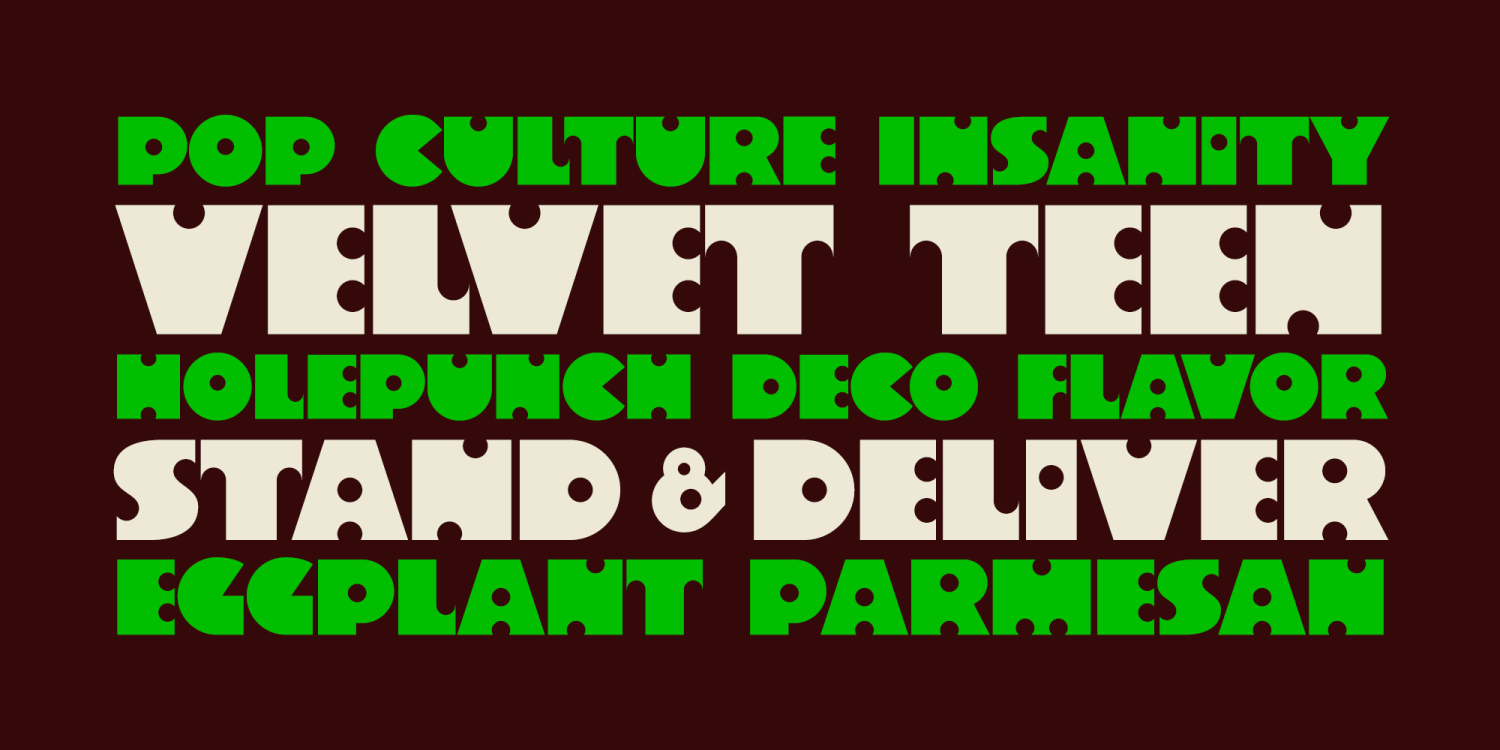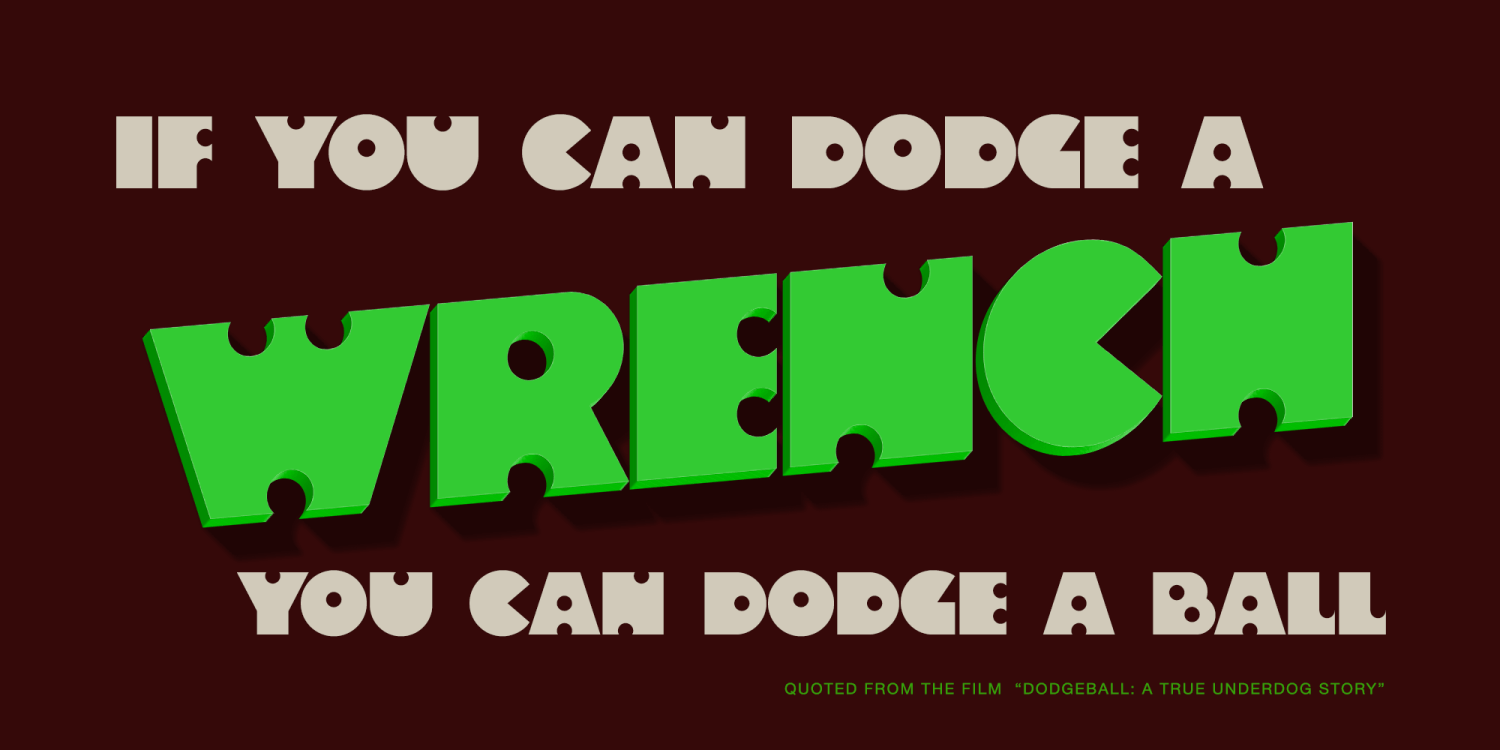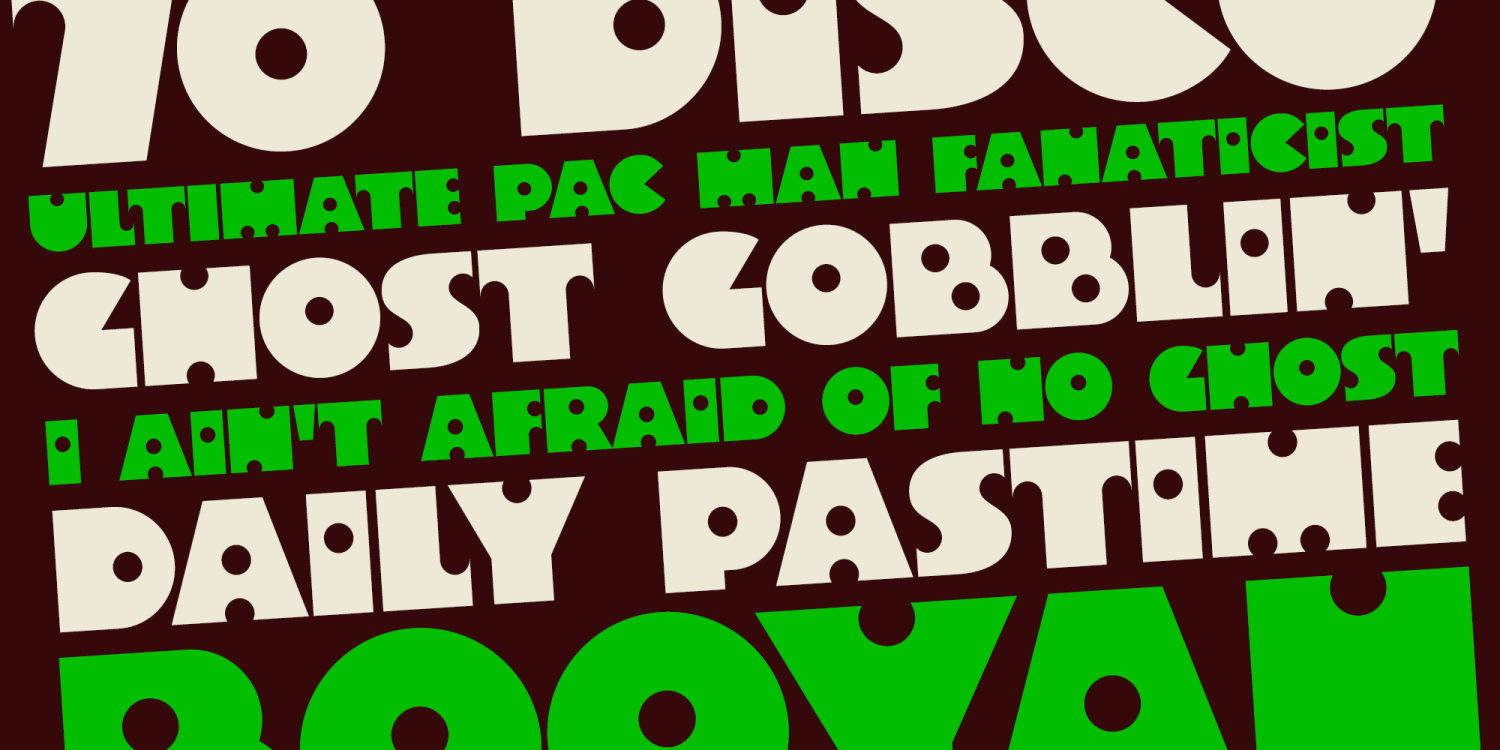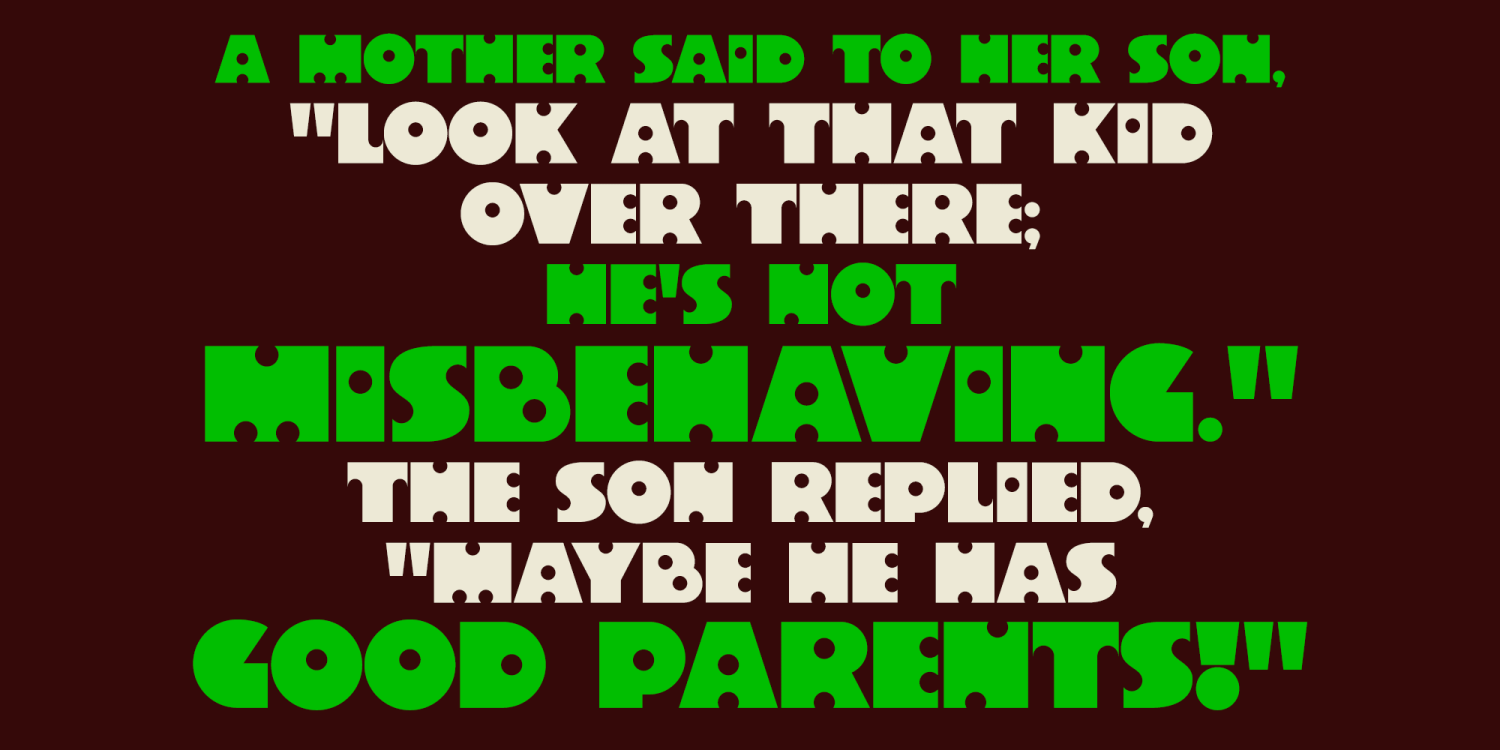
Velvet Teen PB
Font Family by Pink Broccoli
An art deco style typeface inspired by the poster from the 1971 film, Velvet Vampire. Such a playful font for a horror flick!